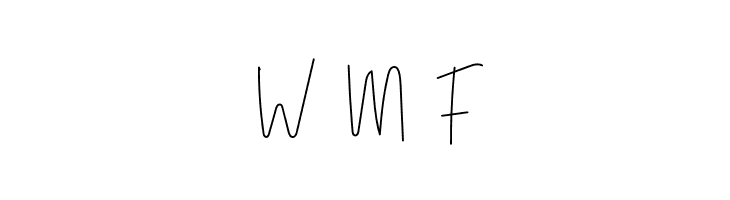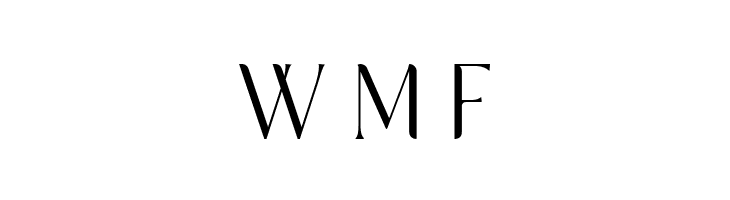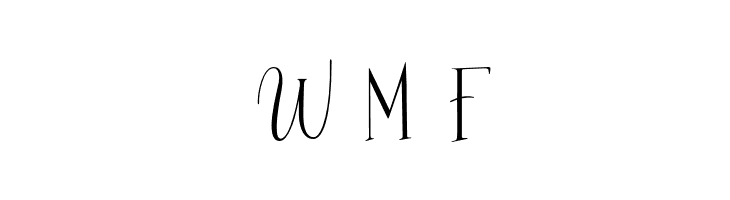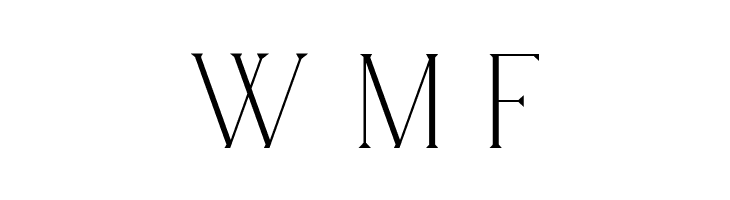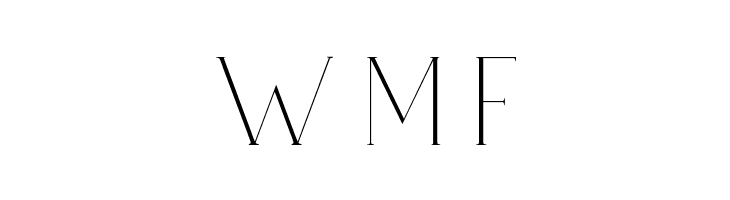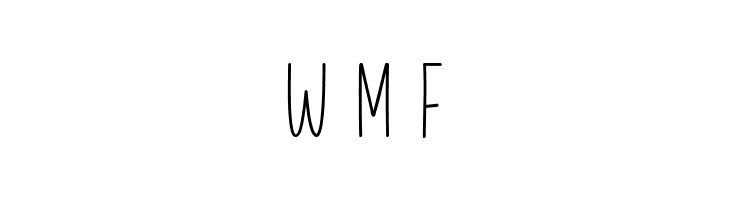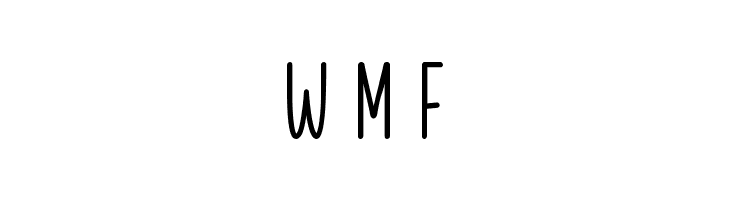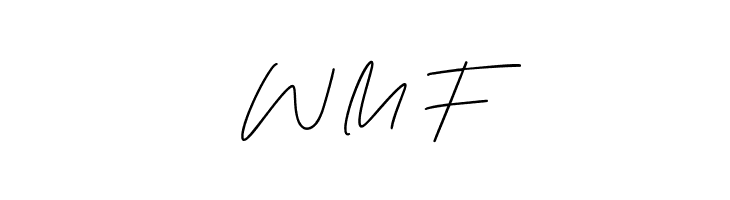
A graceful and elegant serif font with a subtle italic slant.
An elegant and decorative serif font with thin strokes and unique serifs.
A clean, elegant, and modern font with a light touch and excellent readability.
A sophisticated script font with elegant, flowing strokes and high contrast.
A bold, narrow font with elongated characters and a dynamic style.
A calligraphic font with elegant, flowing strokes and dynamic line thickness.
A tall, narrow font with a modern and sleek design.
A bold, narrow font with sharp angles and a modern aesthetic.
An ultra-thin, elongated font with a modern and artistic style.
A whimsical, hand-drawn font with artistic flair and playful curves.
A whimsical and artistic font with elongated, curvy lines and decorative elements.
A playful, ultra-light handwritten font with a whimsical and airy style.
A clean, modern sans-serif font with a light weight and uniform appearance.
A thin, elegant font with a mix of modern and handwritten styles.
An elegant script font with intricate swashes and flowing lines.
A playful and elegant script font with flowing, interconnected letterforms.
A sleek, modern font with elongated, narrow characters and consistent stroke width.
A playful, hand-drawn font with irregular strokes and whimsical charm.
An artistic, elongated font with narrow letterforms and subtle curves.
A sleek, italicized font with thin, elongated characters for a modern look.
A modern, elegant font with a light, airy appearance and subtle slant.
An elegant oblique font with smooth, flowing lines and a modern aesthetic.
A sleek, modern font with thin, elongated letterforms for a sophisticated look.
An elegant, italic typeface with thin, graceful strokes and a modern style.
A classic, elegant italic font with thin, elongated strokes and a sophisticated style.